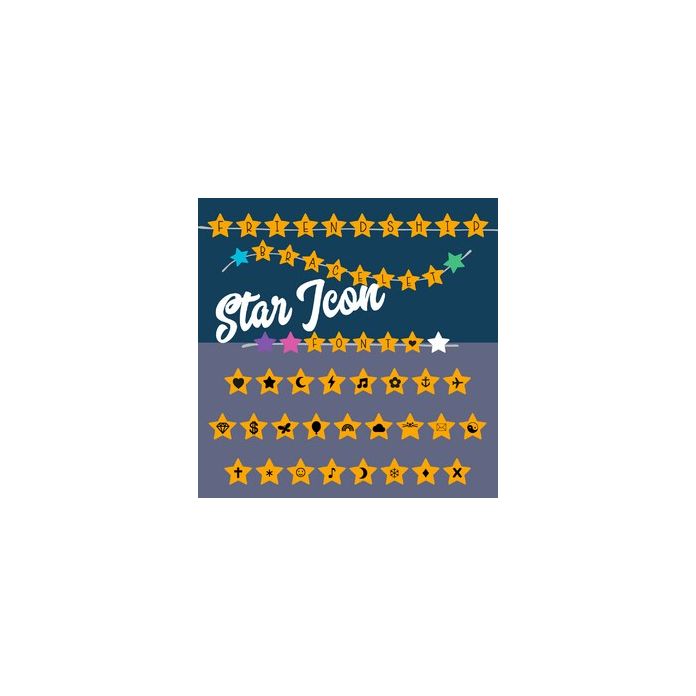
Friendship Bracelet Era Star Icons Font
Star Shaped Yellow beads for Icons also includes multi color plain star beads to mix up patterns and straight and wavy threads to create your own friendship bracelet words, titles and quotes.